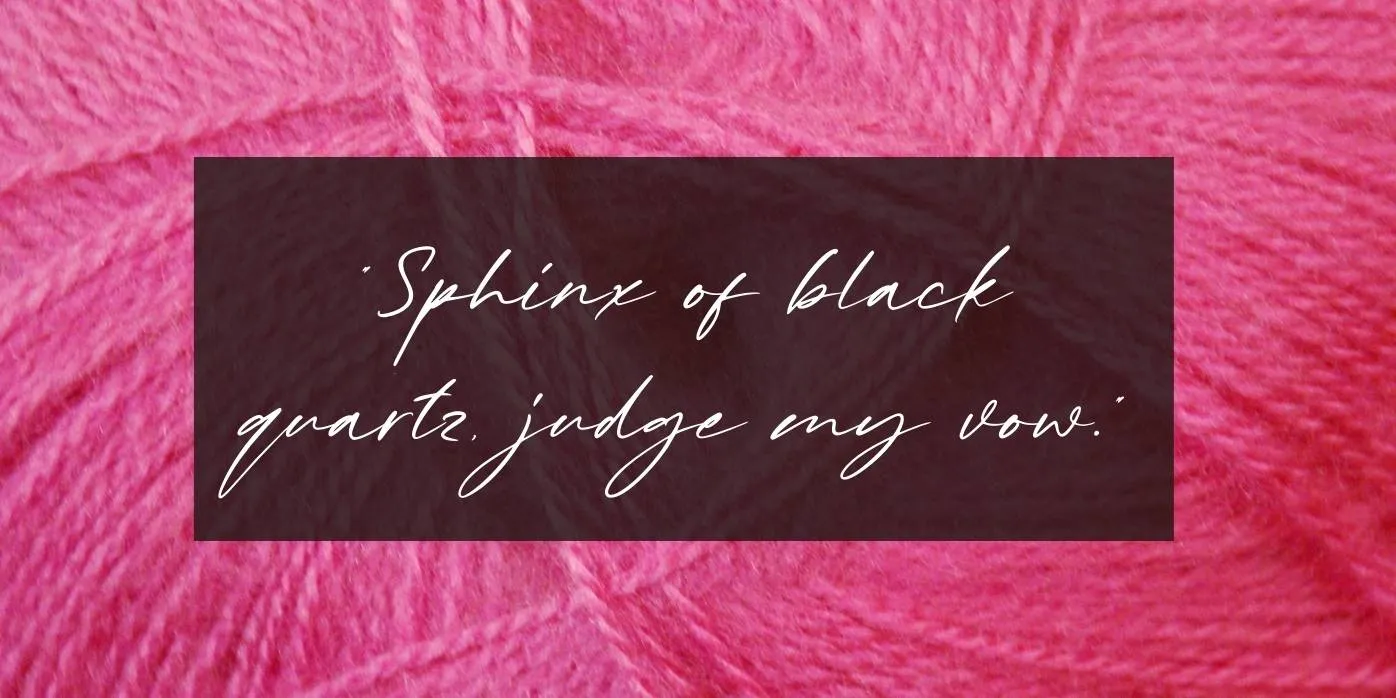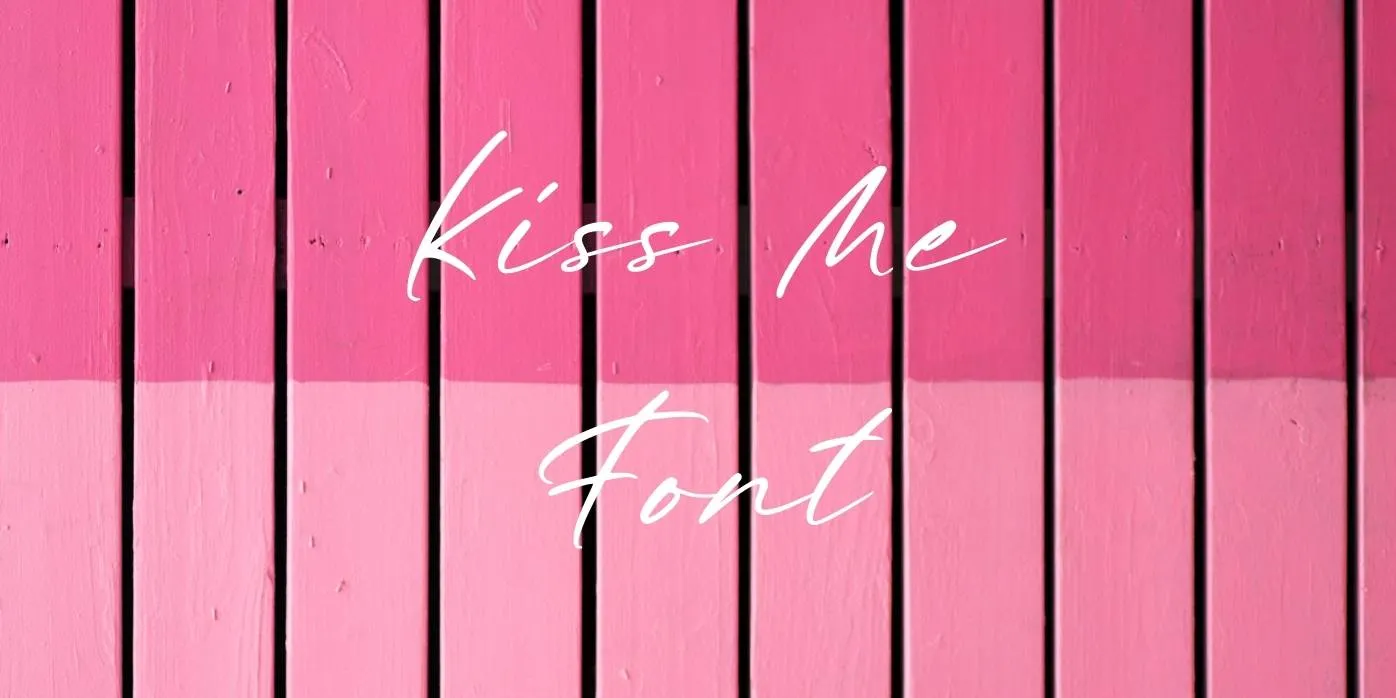
Kiss Me Font
kiss me font was developed and published by Diane Dipiazza Dinctype. This typeface belongs to the Script typeface. This awesome font is a great typeface for various designs. This cozy font comes in regular and italic versions, each with 246 glyphs.
kiss me font is available in OpenType format. This typeface is also available in different styles, including Inline, Regular, and Shadow. This awesome font is a very playful typeface that you can use for a variety of designs, This staggering font is perfect for projects that require a handwritten look. This typeface has clean textures.